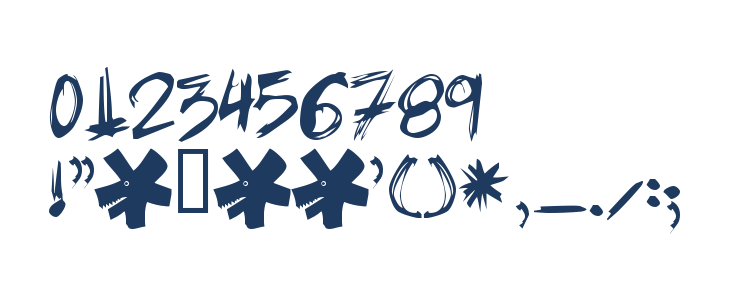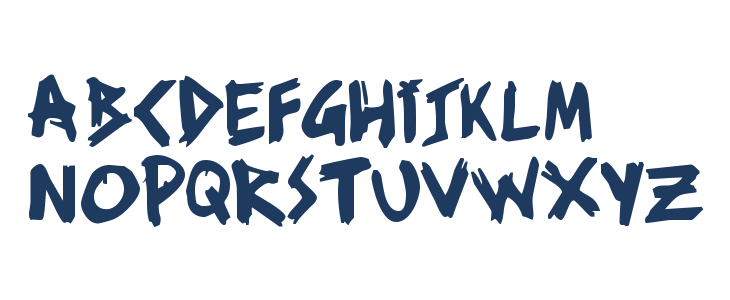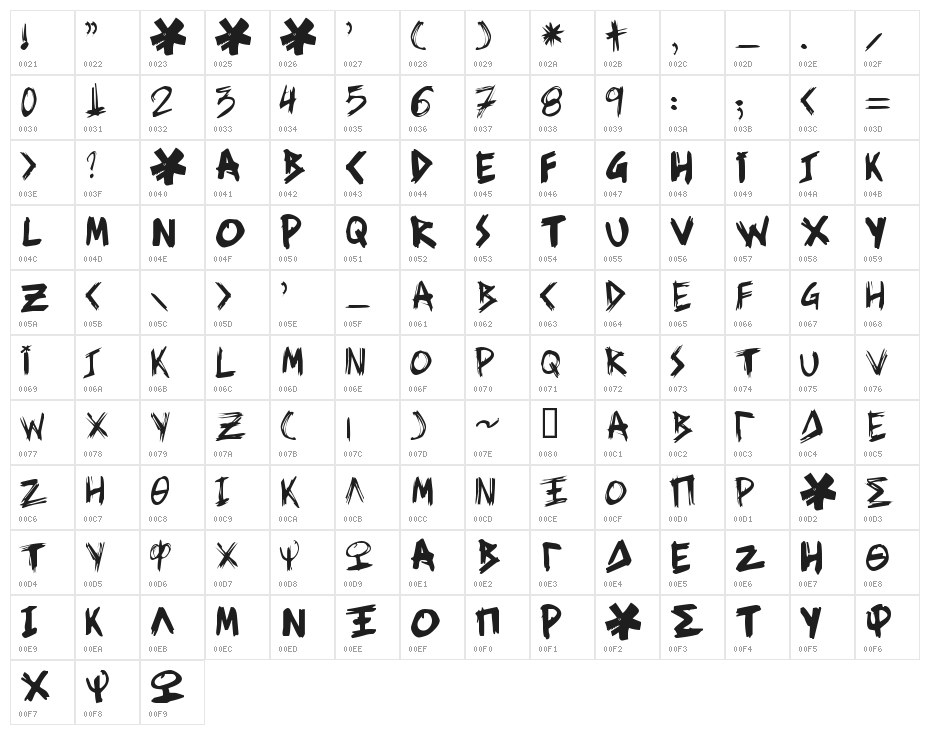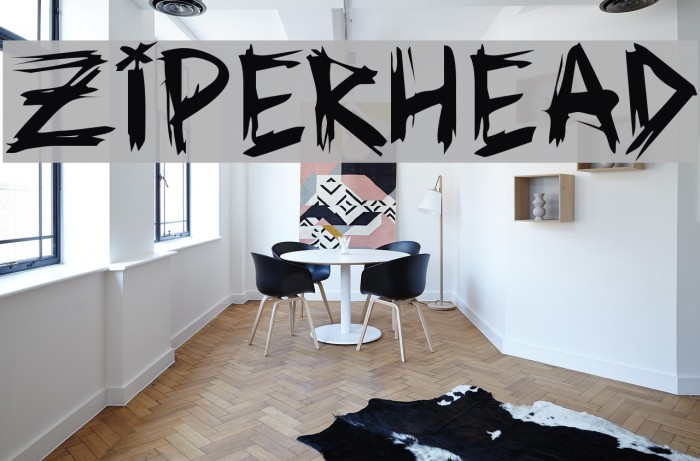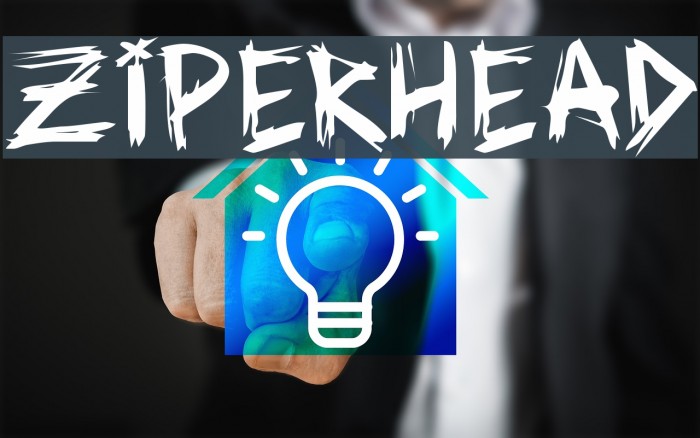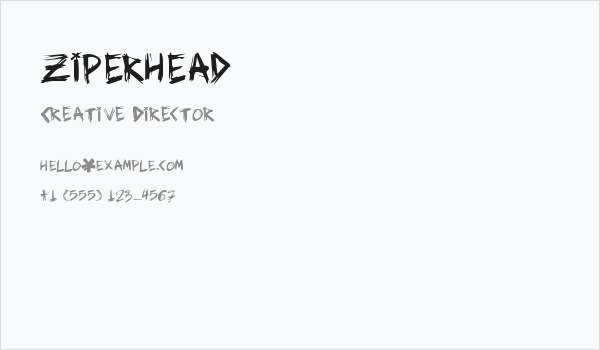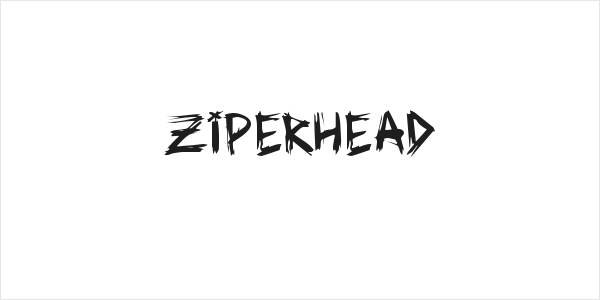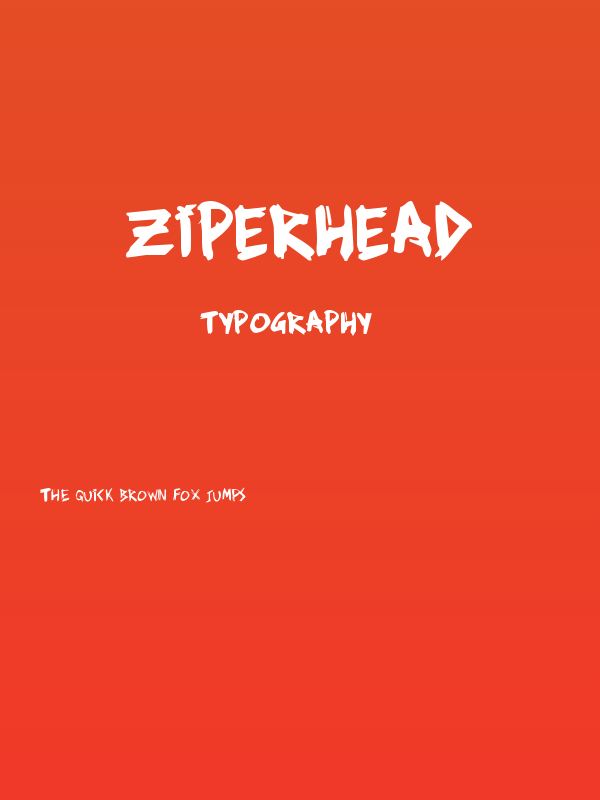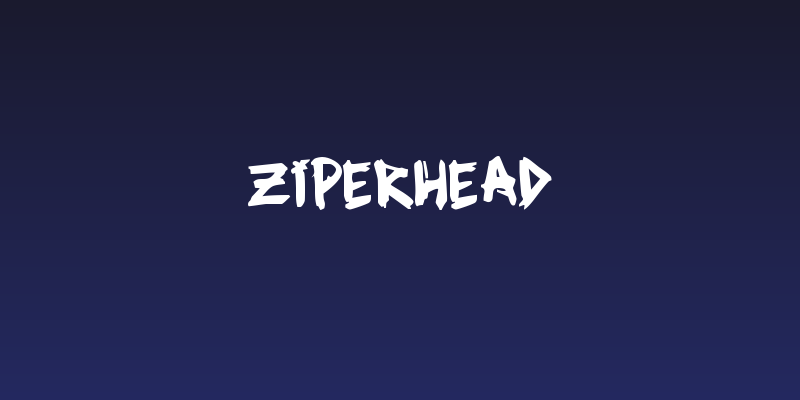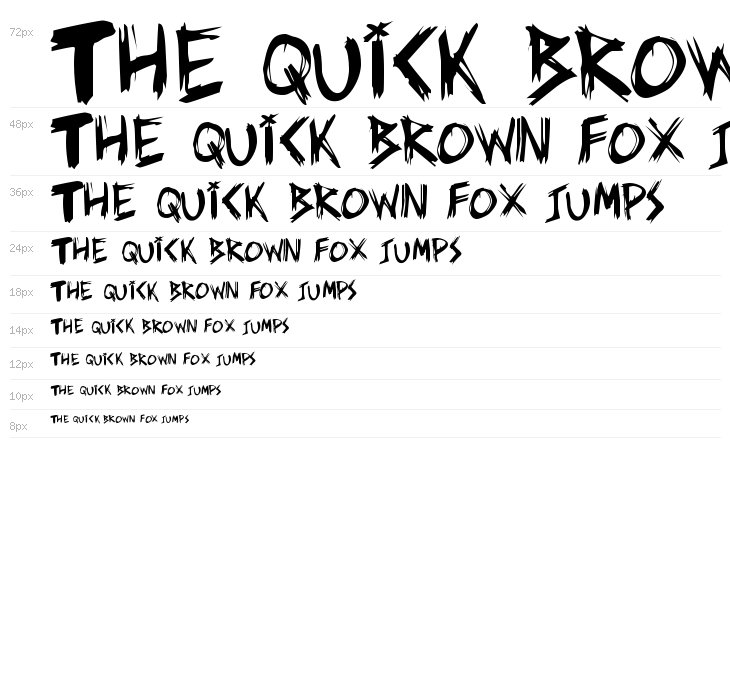
ziperhead Font
ziperhead Description
This font features a bold, edgy design with a distinctly rough and jagged appearance. The characters are crafted with sharp, angular strokes that give a sense of movement and intensity. The uppercase and lowercase letters maintain a consistent style, with exaggerated serifs and uneven lines that create a dynamic and rebellious look. Numbers and special characters follow the same aesthetic, making the font suitable for projects that require a strong, impactful visual presence. The overall design is reminiscent of graffiti or street art, adding a raw and energetic vibe to any text.
Overall StyleModern, Edgy
Proposed ProjectsIdeal for album covers, posters, streetwear branding, and edgy graphic designs.